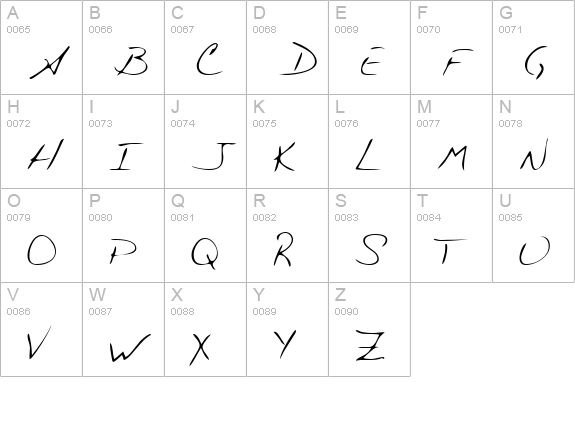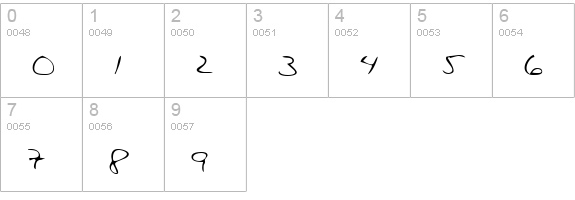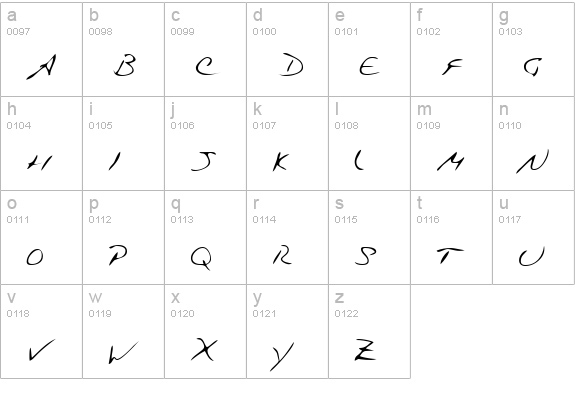
ZacksHand Regular Font Details
ZacksHand Regular is the standard, neutral variant in the ZacksHand typeface family \xE2\x80\x94 well suited to general body text, paragraphs, and standard typographic work.
ZacksHand Regular font is a charming and playful typeface that exudes a friendly and approachable vibe. With its handwritten style and whimsical details, this font is perfect for adding a personal touch to your projects. Whether you're designing greeting cards, invitations, or social media graphics, ZacksHand Regular will bring a unique and creative flair to your work. Best of all, ZacksHand Regular font is completely free to download at FontsMarket.com. Simply visit the website and grab this delightful font to elevate your designs and make them stand out. Embrace the creativity and versatility of ZacksHand Regular font today and see the magic it brings to your projects!